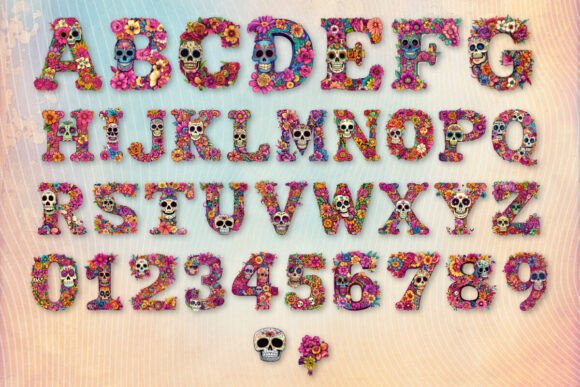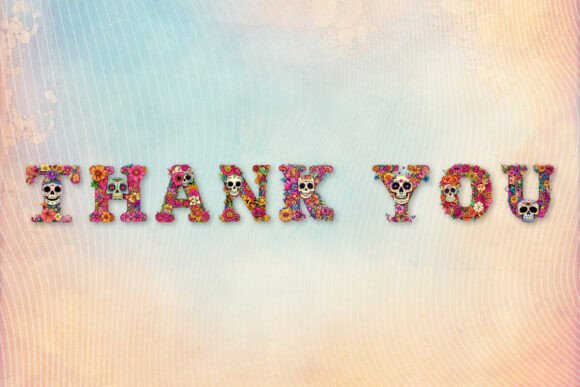
Introduction to Day of the Dead Font
Introducing the Mexican Day of the Dead Alphabet Font – a tribute to one of Mexico’s most vibrant and cherished holidays.
Overflowing with zest, this font embodies the spirit of the Day of the Dead celebrations in each of its 26 letters, 10 numerals, and 2 unique special characters Each stroke exudes a lively and cheerful touch, accentuated by a riot of colors true to the festival’s ethos.
Key Features of Day of the Dead Font